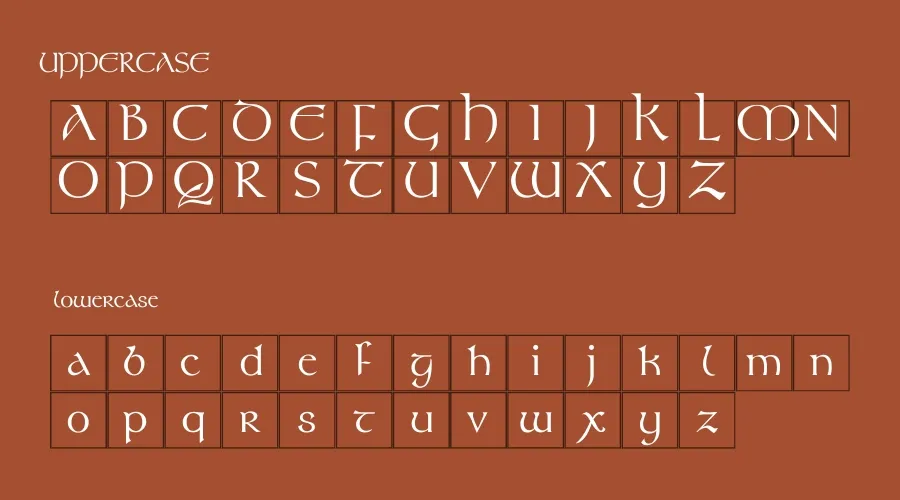
Tolkien Font
About Tolkien Font
The Tolkien font was presented by a well-known graphic designer known as the name of Pete Klassen. This font is under the category of the logo font family and has a unique texture that is suitable for multiple designs and purposes.
The font contains a variety of elements that create it unique, such as its wide scope of glyphs. This font supports multiple international languages that's why it achieved fame in a very short time after it was published in the font world. It is perfect for both adobe photoshop and CSS.
The typeface is available in multiple styles and weights such as regular, bold, and light. This font contains both small and capital letters. The online generator tool is excellent for converting any easy and straightforward texture into fashionable qualities.